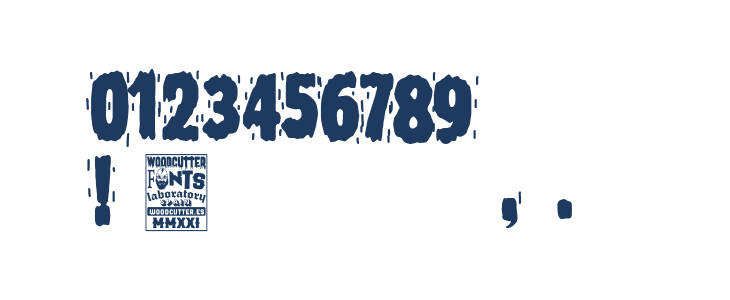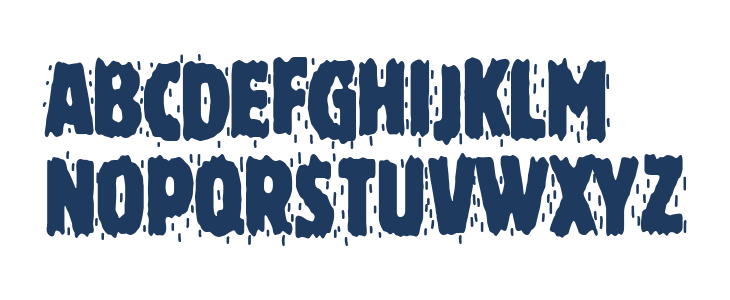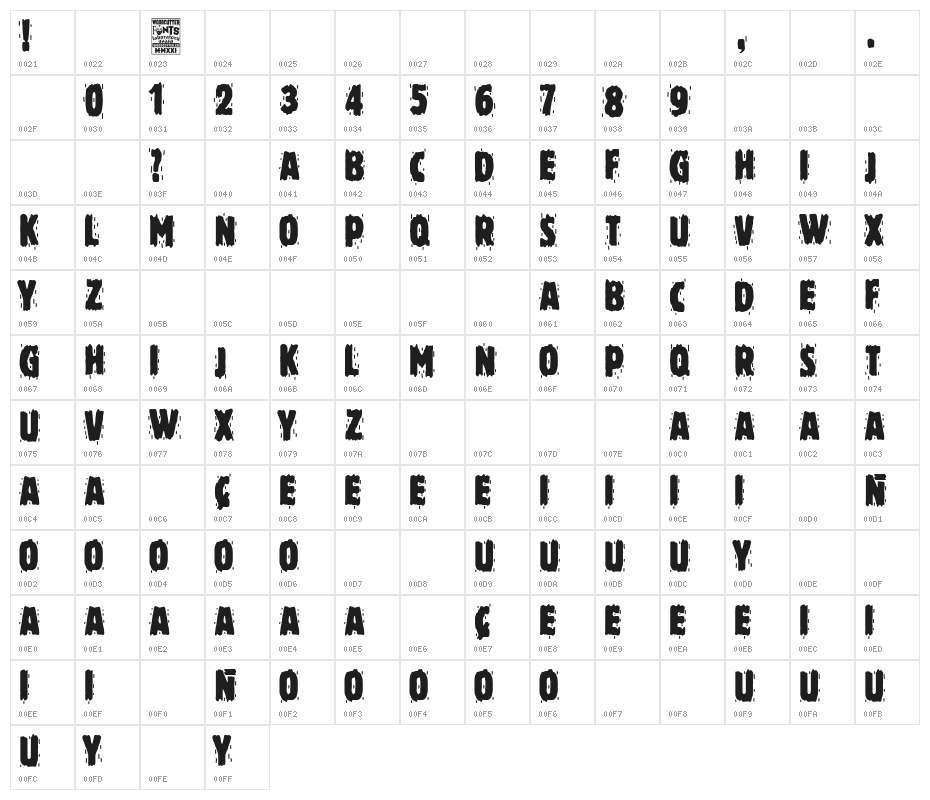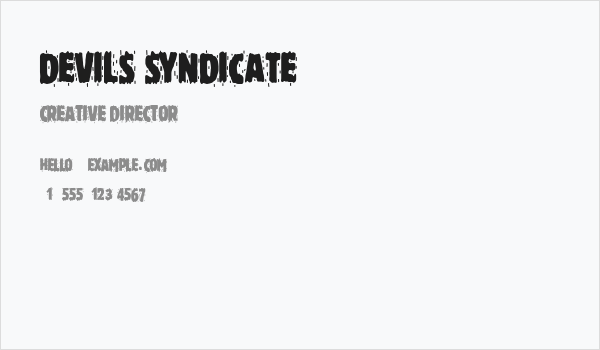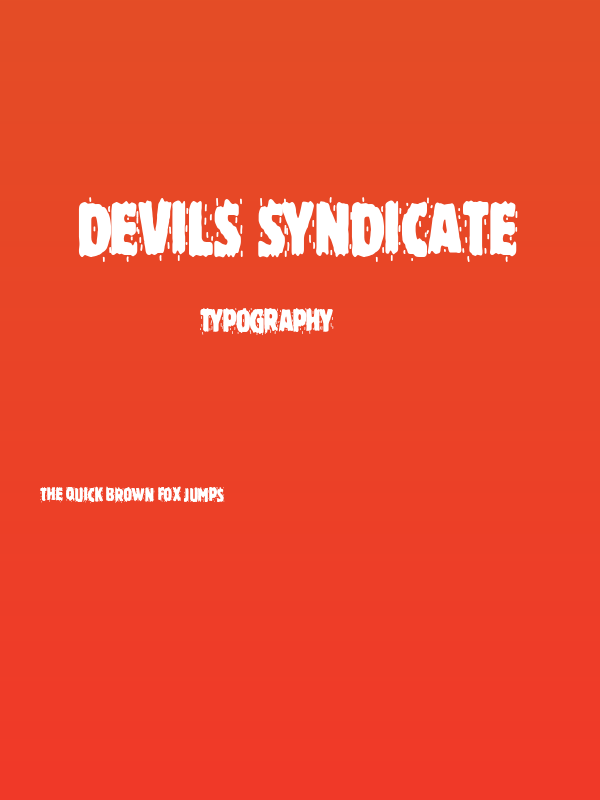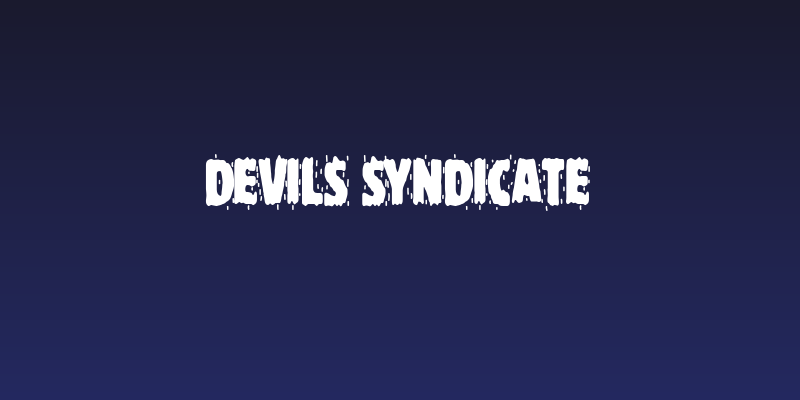
Devils Syndicate Font
Devils Syndicate Description
A bold, uppercase display font with irregular, dripping edges that create a dramatic, horror-inspired effect. The letterforms are blocky and heavy, with consistent width and high visual impact, evoking a sense of unease or supernatural themes.
| Overall Style | Decorative, Horror, Dramatic |
| Use Case | Headlines, Posters, Logos, Event Promotions |
| Proposed Projects | Halloween posters, horror movie titles, haunted house signage, themed party invitations, graphic novels. |